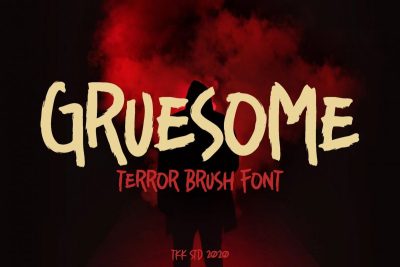
Scary Font Gruesome delivers the perfect blend of creativity and terror for designers seeking a bold, eerie typeface. With its hand-brushed strokes, it creates a raw, textured look that instantly demands attention. Therefore, it becomes an excellent choice for horror-themed projects, Halloween graphics, or any designs that require a chilling vibe. Moreover, every detail in the font evokes suspense, ensuring your audience feels the intended intensity.
This versatile font thrives in various settings, whether youโre designing posters, book covers, or cinematic titles. Not only does it enhance the mood of your projects, but it also remains readable and visually striking. Additionally, Scary Font Gruesomeโs artistic imperfections add character, which helps set it apart from ordinary horror fonts. Its unique design lets you craft visuals that leave a lasting impression, no matter the medium.
Why Scary Font Gruesome Stands Out
Scary Font Gruesome offers more than just a spooky aestheticโit empowers designers with a high-quality typeface that sparks creativity. Its handcrafted details provide designs with an authentic, eerie touch, ensuring they resonate deeply with viewers. For this reason, the font doesnโt just set a mood; it becomes the centerpiece of any project, grabbing attention and holding it.
Furthermore, the striking brushstrokes of Scary Font Gruesome bring depth and texture to your visuals. Because of its adaptability, it is easy to pair with complementary typefaces or graphic elements. Consequently, you can build impactful and cohesive compositions effortlessly. Whether youโre working on branding for a haunted attraction, an eerie video intro, or themed social media content, this font ensures your design stands out in the crowd.
Finally, Scary Font Gruesome prioritizes quality and usability, making it a must-have for both professional and hobbyist designers. Its ability to balance frightful aesthetics with readability ensures it can elevate your projects without compromising functionality. If you aim to captivate your audience with a memorable, spine-tingling design, this font will be your perfect companion.